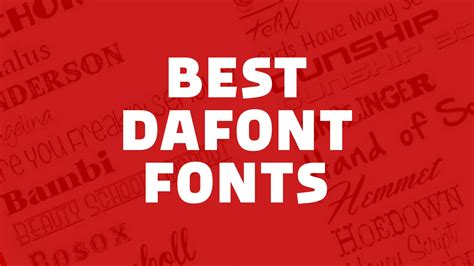
Dafont: Your Guide To Free Fonts & Typography
Dafont: Your Guide to Free Fonts & Typography
Hey guys! Ever stumbled upon a design and thought, “Wow, that font is amazing !”? Well, chances are, someone found it on Dafont . It’s like the ultimate treasure trove for fonts, and today, we’re diving deep into everything Dafont has to offer. Whether you’re a seasoned designer or just starting out, this guide will help you navigate the world of Dafont like a pro. Let’s get started!
What Exactly is Dafont?
Dafont is a website that offers a vast collection of freely downloadable fonts. It’s a go-to resource for designers, hobbyists, and anyone looking to add a unique touch to their projects. The fonts available on Dafont range from the classic and elegant to the quirky and fun, catering to a wide array of design needs.
Dafont is a vast online archive, a digital library overflowing with typography just waiting to be discovered. More than just a collection of letters, numbers, and symbols, Dafont provides the building blocks for visual communication, the very essence of design. It allows you to express ideas, evoke emotions, and set the tone for your creative projects, all through the careful selection of typeface. Navigating the world of fonts can be daunting, with endless styles and classifications, but Dafont simplifies the process with its user-friendly interface and intuitive search functions. Whether you’re looking for a bold, attention-grabbing font for a poster or a delicate, sophisticated typeface for a wedding invitation, Dafont provides a diverse range of options to suit every aesthetic preference. It is a platform that democratizes design, allowing individuals and small businesses to access high-quality fonts without breaking the bank. Furthermore, Dafont serves as a vibrant community hub where font designers can showcase their work and connect with potential users. It’s a place of collaboration and inspiration, where creativity thrives and typography is celebrated in all its forms. By providing a platform for independent designers, Dafont fosters innovation and contributes to the evolution of font design. So, if you’re embarking on a new design project or simply seeking to expand your typographic horizons, Dafont is the perfect place to start your exploration. Just remember to pay attention to the license agreements and respect the rights of the font creators. Now, let’s get down to the nuts and bolts of using Dafont effectively.
The Allure of Free Fonts
The allure of free fonts is undeniable, particularly in a world where design resources can often come with a hefty price tag. For students, hobbyists, and small businesses operating on a tight budget, the availability of free fonts opens up a world of creative possibilities. Dafont , in particular, has become a go-to destination for those seeking high-quality typography without the financial burden. However, it’s crucial to understand that the term “free” can be deceptive, as it often comes with certain limitations and stipulations. Most free fonts are licensed for personal use only, meaning they can be used for non-commercial projects such as school assignments, personal blogs, or hobbyist creations. Using these fonts for commercial purposes, such as in logos, marketing materials, or products for sale, would constitute a violation of the license agreement. To avoid any legal repercussions, it’s essential to carefully review the license terms associated with each font before incorporating it into your designs. In many cases, the font designer may offer a commercial license for a fee, allowing you to use the font for profit-generating activities. By respecting the licensing agreements, you not only protect yourself from potential legal issues but also support the font designers who contribute their talent and creativity to the community. Furthermore, it’s worth noting that the quality of free fonts can vary significantly. While some free fonts are meticulously crafted and comparable to their commercial counterparts, others may suffer from inconsistencies or lack of refinement. Therefore, it’s always a good idea to thoroughly test the font in your design software to ensure it meets your expectations before committing to its use. Ultimately, the allure of free fonts lies in their accessibility and affordability, but it’s crucial to approach them with caution and diligence to ensure you’re using them legally and ethically.
Dafont’s website is designed to be user-friendly, making it easy to find the perfect font for your project. The site is organized into various categories, such as Fancy, Cartoon, Groovy, Old School, and many more. You can also use the search bar to find specific fonts or browse by designer.
Navigating the Dafont website is a breeze, thanks to its intuitive layout and user-friendly design. The homepage presents a curated selection of featured fonts, popular downloads, and recently added typefaces, giving you a quick overview of what’s trending in the font community. If you have a specific font style in mind, you can explore the various categories listed in the top navigation bar, such as Sans Serif, Serif, Script, Display, and Dingbats . Each category is further divided into subcategories, allowing you to narrow down your search and discover fonts that perfectly match your project’s aesthetic. For example, if you’re looking for a vintage-inspired font, you can navigate to the “Script” category and then select the “Retro” subcategory to find a range of elegant and nostalgic typefaces. Alternatively, if you know the name of a specific font you’re looking for, you can use the search bar located in the upper right corner of the page. Simply type in the font name and Dafont will instantly display any matching results. The search bar also supports keyword searches, allowing you to find fonts based on descriptive terms such as “bold,” “italic,” or “handwritten.” Another helpful feature of the Dafont website is the preview tool, which allows you to see how a font will look with your own text. Simply enter your desired text into the preview box and Dafont will generate a real-time preview of the font in action. This is particularly useful for determining whether a font is legible at different sizes or whether it complements your overall design. Furthermore, Dafont provides detailed information about each font, including the designer’s name, the license agreement, and user ratings and reviews. This information can help you make informed decisions about which fonts to download and use in your projects. With its comprehensive search features, intuitive navigation, and helpful preview tools, the Dafont website makes it easy to find the perfect font for any design project. Whether you’re a seasoned designer or just starting out, you’ll appreciate the site’s user-friendly interface and vast collection of high-quality fonts.
Categories to Explore
Dafont’s categorization system is one of its strengths. It allows you to quickly narrow down your search based on the style or theme you’re looking for. Here are a few popular categories:
• Fancy: This category includes a wide variety of decorative and unusual fonts, perfect for adding a unique flair to your designs.
• Basic: This category features classic and versatile fonts that can be used in a variety of projects.
• Script: This category includes elegant and flowing fonts that mimic handwriting, ideal for invitations and other formal designs.
• Dingbats: This category contains fonts that consist of symbols and icons rather than letters, perfect for adding visual interest to your designs.
Exploring the various categories on Dafont is like embarking on a typographic treasure hunt, where you never know what hidden gems you might uncover. The site’s extensive categorization system is designed to help you narrow down your search and discover fonts that perfectly match your project’s aesthetic. The “Fancy” category is a veritable playground for creative expression, featuring a diverse range of decorative and unconventional fonts. From whimsical cartoon fonts to grungy graffiti typefaces, this category is perfect for adding a touch of personality and flair to your designs. If you’re looking for something more traditional and versatile, the “Basic” category offers a selection of classic and timeless fonts that can be used in a variety of projects. These fonts are typically clean and legible, making them ideal for body text, headlines, and other essential design elements. For adding a touch of elegance and sophistication, the “Script” category features a collection of flowing and cursive fonts that mimic handwriting. These fonts are perfect for wedding invitations, greeting cards, and other formal designs where you want to convey a sense of refinement and artistry. The “Dingbats” category is a unique and often overlooked section of Dafont, featuring fonts that consist of symbols and icons rather than letters. These fonts can be used to add visual interest to your designs, create custom bullet points, or even design simple illustrations. Beyond these popular categories, Dafont offers a wide range of other categories to explore, including “Techno,” “Gothic,” “Foreign look,” and “Bitmap.” Each category is further divided into subcategories, allowing you to fine-tune your search and discover fonts that perfectly match your specific needs. Whether you’re a seasoned designer or just starting out, exploring the various categories on Dafont is a great way to expand your typographic horizons and discover new and exciting fonts to use in your projects. So, go ahead and dive in – you never know what typographic treasures you might find!
Dafont is more than just a website; it’s a fontastic resource for anyone seeking to elevate their design projects with the power of typography. Its vast collection of freely downloadable fonts, coupled with its user-friendly interface and comprehensive categorization system, makes it an indispensable tool for designers, hobbyists, and anyone looking to add a unique touch to their creations. Whether you’re crafting a logo, designing a website, or simply creating a personal invitation, Dafont offers a diverse range of options to suit every aesthetic preference and project requirement. One of the key strengths of Dafont is its commitment to providing a platform for font designers to showcase their work and connect with potential users. By supporting independent designers, Dafont fosters innovation and contributes to the evolution of font design. This creates a vibrant community where creativity thrives and typography is celebrated in all its forms. However, it’s important to remember that the fonts available on Dafont are not simply free for the taking. Each font is subject to a specific license agreement that outlines the terms and conditions for its use. While many fonts are offered for personal use, commercial use often requires a separate license from the font’s creator. Therefore, it’s essential to always check the license agreement before using a font in any project, and to respect the rights of the font designer. By understanding and adhering to font licenses, you not only protect yourself from potential legal issues but also support the creative community and help ensure the continued availability of high-quality fonts. So, whether you’re a seasoned designer or just starting out, Dafont is an invaluable resource that can help you unlock the full potential of typography and bring your creative visions to life. With its vast collection, user-friendly interface, and commitment to supporting font designers, Dafont is truly a fontastic resource for anyone passionate about design.